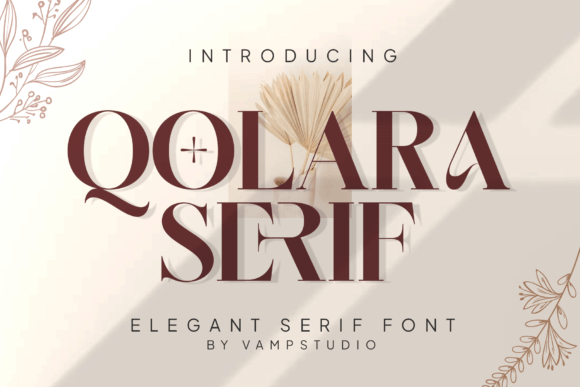
Introduce yourself to the world of Qolara Font, a modern and stylish serif typeface that exudes elegance and sophistication. Qolara Font is designed to captivate your audience with its clean lines and timeless beauty. Step into a world of vintage charm, where Qolara Font takes you on a nostalgic journey. With its impeccable craftsmanship, Qolara Font is the perfect muse for your creative projects.
Indulge in the allure of Qolara Font, a typeface that embodies grace and refinement. From branding projects and logos to social media posts and advertisements, Qolara Font adds a touch of timeless elegance to every design. Allow your wedding invitations and stationery to radiate with sophistication as Qolara Font weaves its magic, creating a lasting impression on your guests.
Unleash your creativity with Qolara Font, the perfect companion for product packaging and designs. Let your products stand out with the allure of Qolara Font, capturing the attention of customers and leaving a lasting impression. Embrace the versatility of Qolara Font, a typeface that seamlessly blends with any project, adding a touch of vintage charm and modern flair.